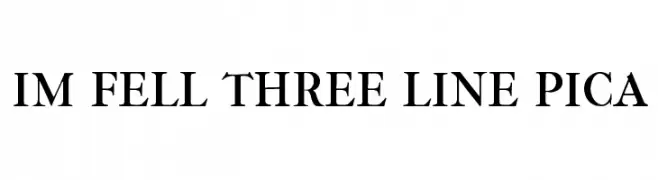
( Fonts by Paul Lloyd )
A decorative and ornate font with uppercase letters in intricate square frames, exuding vintage elegance.
( Fonts by The Font Emporium )
A mechanical, industrial font with a distressed, vintage texture.
( Fonts by Manfred Klein - manfred-klein.ina-mar.com )
A font inspired by ancient architecture with sharp serifs and a historical aesthetic.
( Fonts by Manfred Klein - manfred-klein.ina-mar.com )
A bold, intricate Blackletter font with dramatic, angular lines and ornate details.
( Fonts by www.iginomarini.com )
A classic serif font with bold strokes and high contrast, exuding elegance and tradition.
An elegant, italic serif font with medium contrast and classic style.